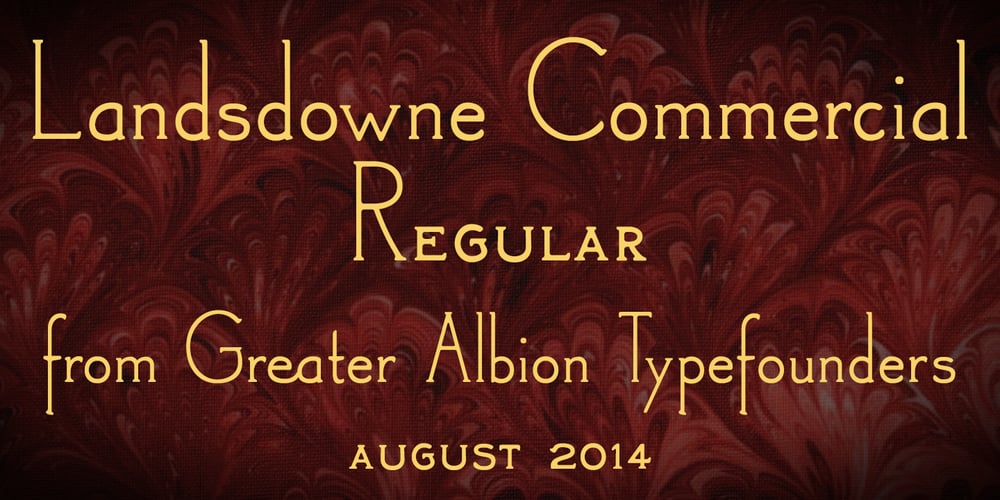
Landsdowne Commercial Font Family was designed by Paul James Lloyd and published by Greater Albion Typefounders. Landsdowne Commercial contains 2 styles and family package options. ‘Landsdowne Commercial’ is a development of one of our designer’s earlier public domain releases, ‘Landsdowne’. All glyphs have been completely redrawn and refined. An extensive range of stylistic alternates and ligatures have been added, as well as a completely new bold face and several forms of numerals. Landsdowne commercial is ideal for period-inspired design work, such as posters and book covers as well for clear elegant communications.